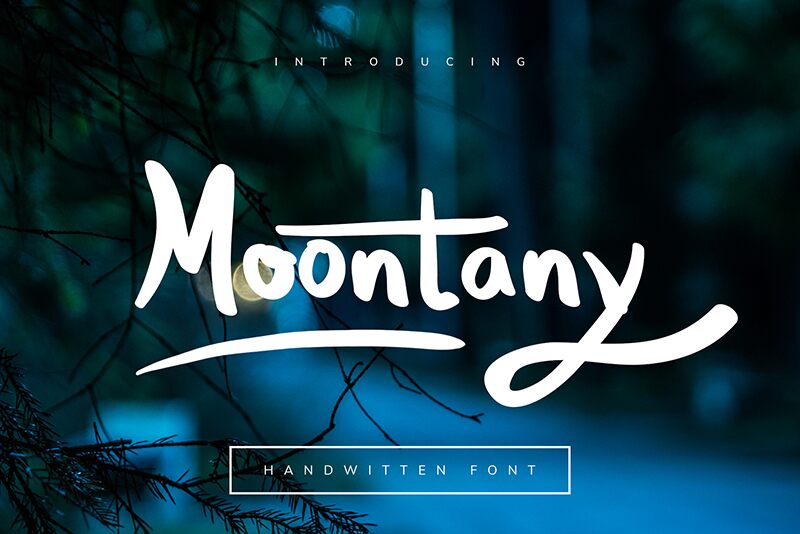
Moontany Personal
Moontany is a captivating handwritten font crafted by designer Septiandika Pratama. Its flowing, organic strokes and whimsical character shapes evoke a sense of natural elegance and charm. The font's distinctive personality shines through in the dynamic interplay of thick and thin lines, creating a versatile aesthetic that lends itself beautifully to a wide range of design applications.
From eye-catching headlines and impactful branding to heartfelt stationery and invitations, Moontany's expressive quality and artful presentation make it an invaluable asset for designers seeking to infuse their work with a touch of handcrafted allure. Its versatility extends across print and digital mediums, allowing users to captivate audiences with a refined, personalized touch.